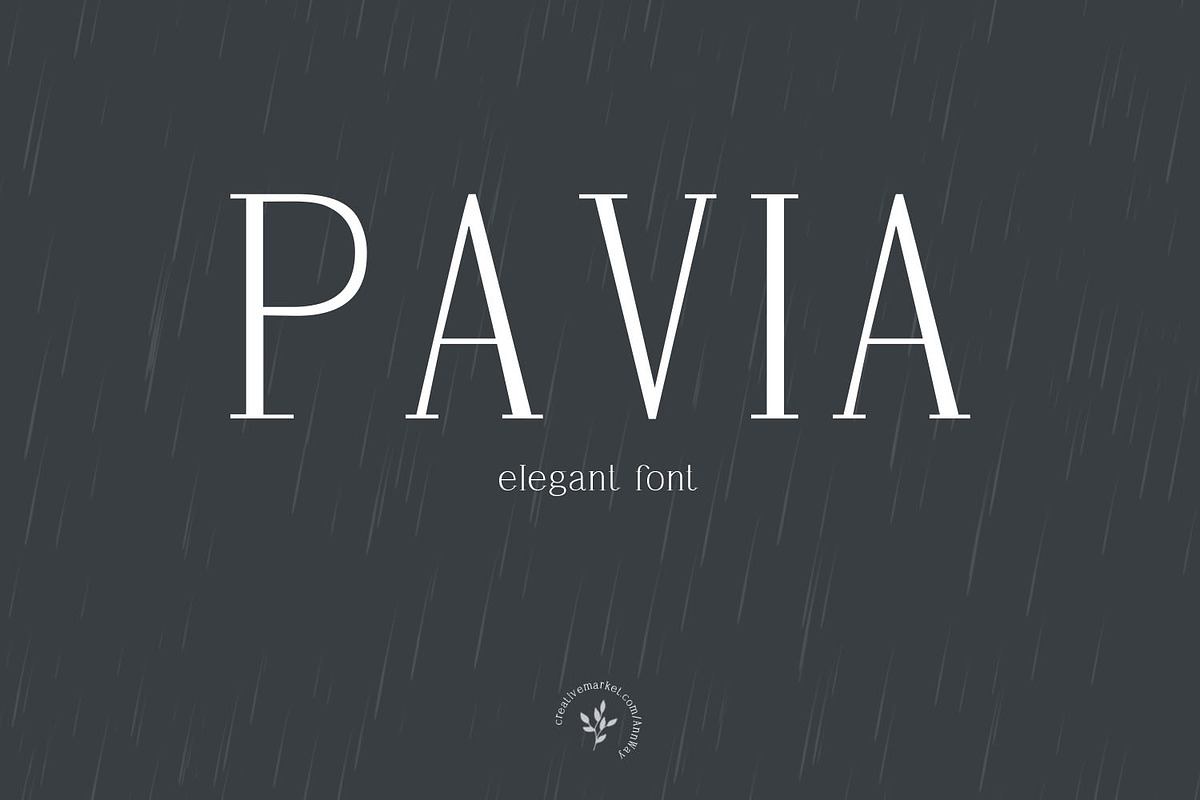
Pavia Font Free Download is a modern and elegant serif typeface designed to bring sophistication and clarity to your creative projects. With its refined curves, high contrast strokes, and timeless appeal, Pavia is perfect for branding, editorial layouts, fashion lookbooks, wedding invitations, and luxury packaging.
This typeface blends classic charm with a fresh, contemporary edge—making it a versatile choice for designers who want both elegance and functionality. Whether you're working on a professional logo or a minimal website header, Pavia adds a polished and graceful touch to your typography.